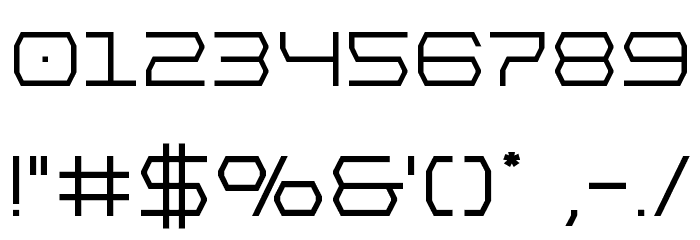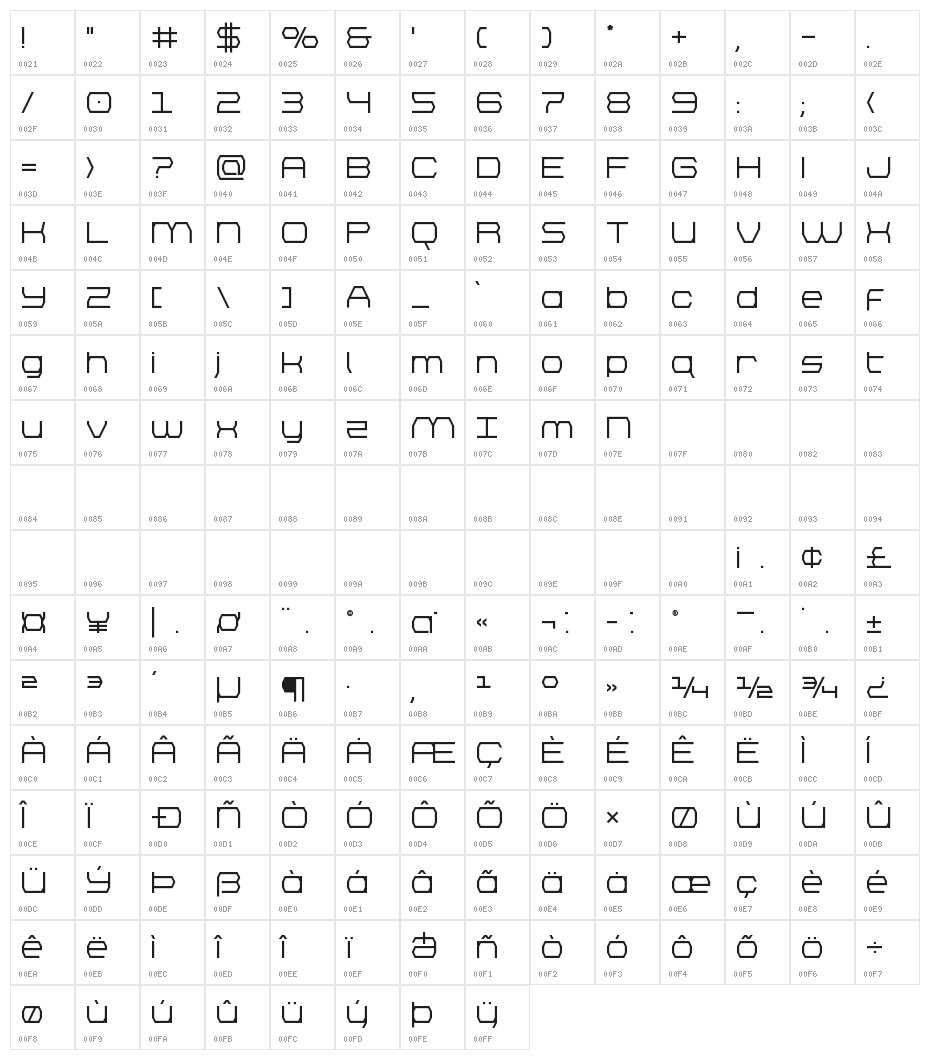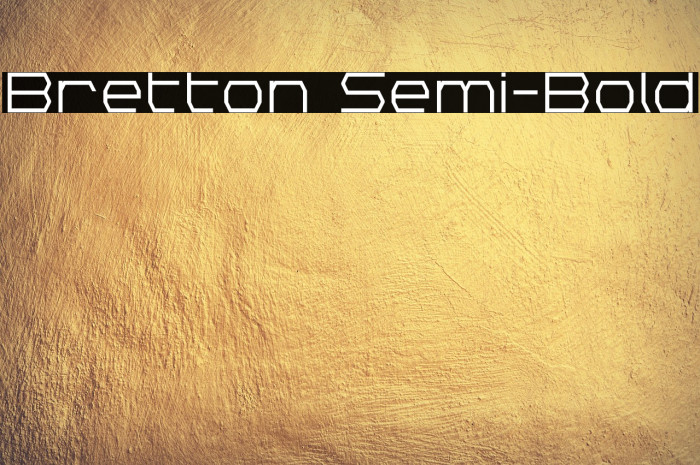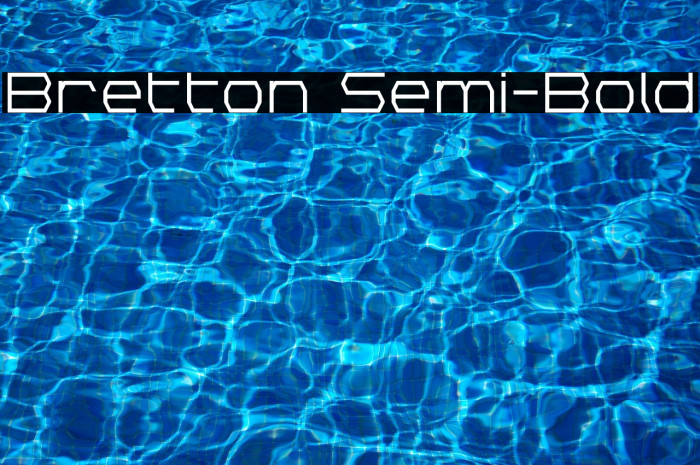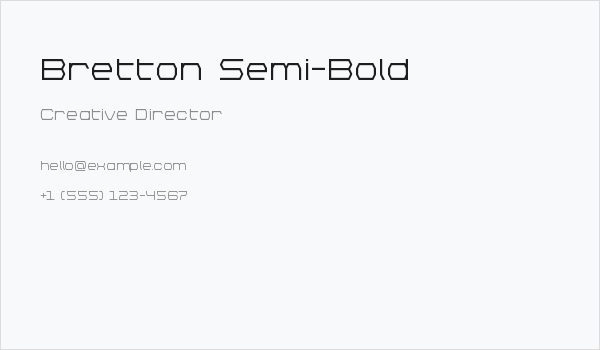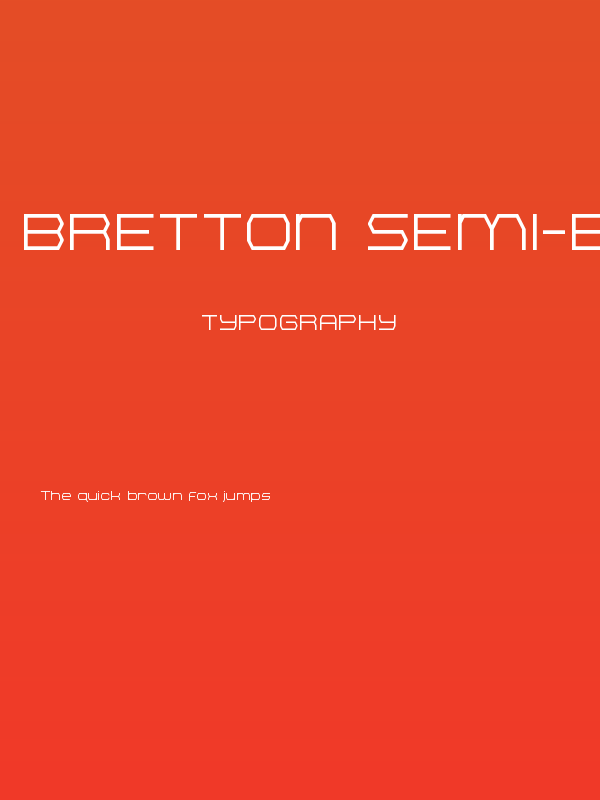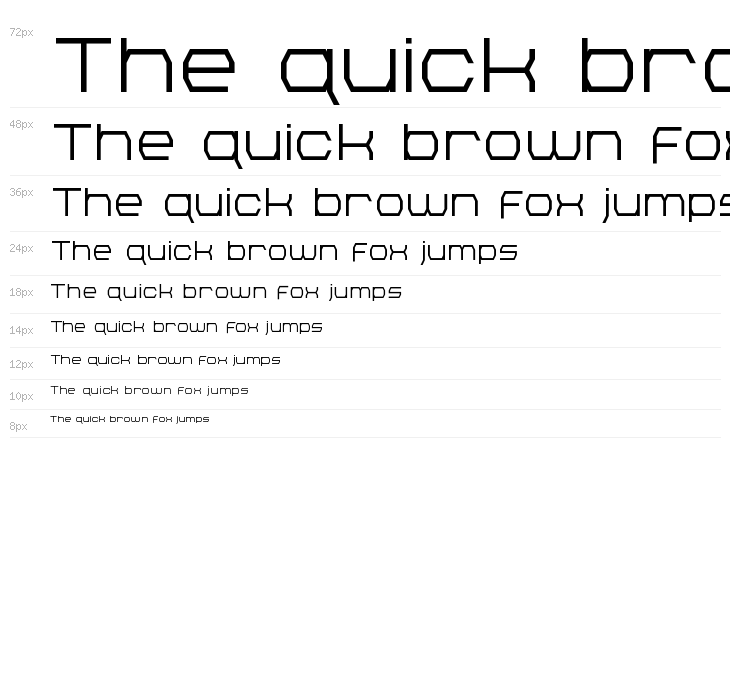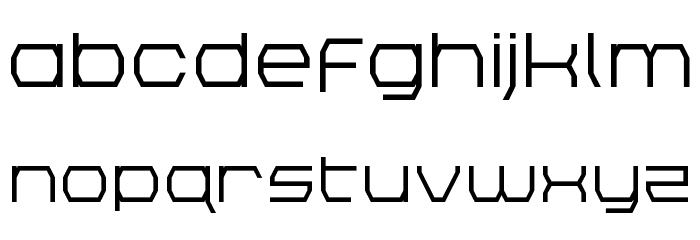
Bretton Semi-Bold Font
Bretton Semi-Bold Description
This font features a geometric and modern design with a distinct angular style. The characters are constructed with straight lines and sharp angles, giving it a futuristic and technical appearance. The uppercase and lowercase letters maintain a consistent height, contributing to a uniform look. The numerals and special characters follow the same design principles, ensuring a cohesive visual identity across all glyphs. The font's unique structure makes it stand out, ideal for projects that require a contemporary and edgy feel.
| Overall Style | Modern, Futuristic |
| Proposed Projects | Ideal for technology branding, futuristic designs, digital interfaces, and modern advertising. |